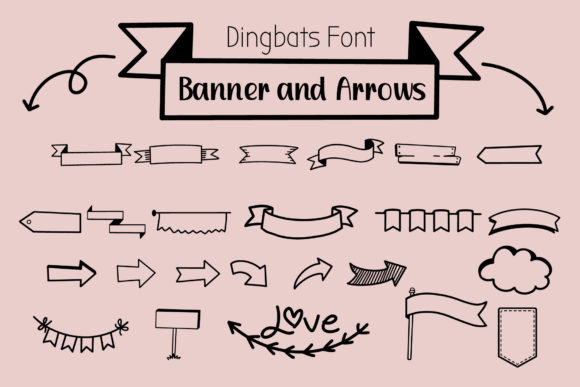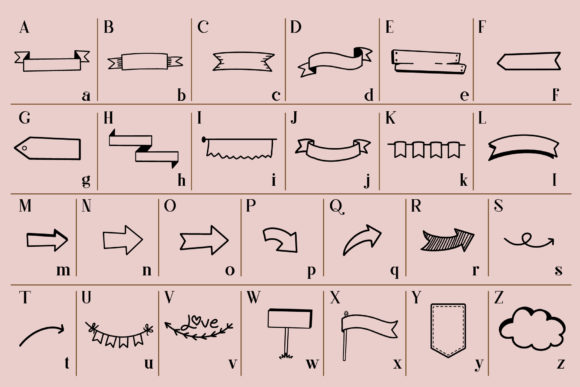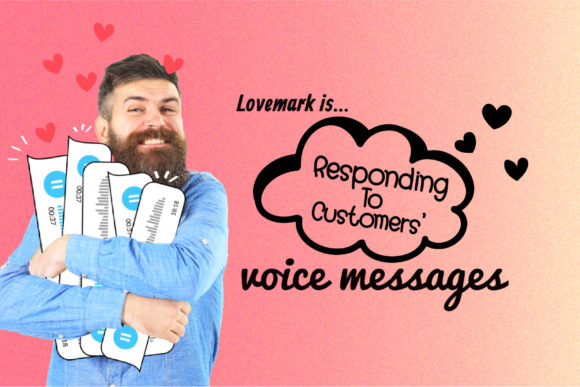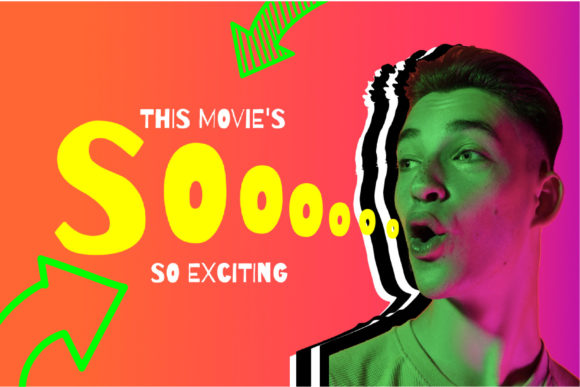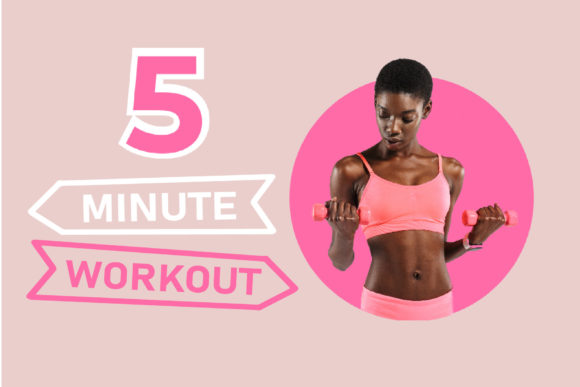
Banner and Arrows Font
Banner And Arrows is an impressive and practical dingbats font that offers a collection of banners and arrows to enhance your design projects. Whether you’re creating banners, labels, signs, or simply adding visual interest to your designs, this font is a valuable addition to your creative toolkit.
With Banner And Arrows, you have access to a variety of banner shapes and styles. These banners can be used to highlight text, create attention-grabbing headers, or frame important information in your designs. The versatility of the banners allows you to adapt them to various projects, whether it’s designing posters, flyers, social media graphics, or even web banners.
In addition to the banners, the font also includes a range of arrows. Arrows are useful for directing attention, indicating movement or flow, or adding a dynamic element to your designs. You can incorporate these arrows into navigation menus, infographics, presentations, and any other project where visual cues and direction are needed.
One of the advantages of using a dingbats font like Banner And Arrows is the ease of implementation. Simply type the corresponding letters or characters to generate the desired banner or arrow glyph. You can experiment with different styles, sizes, and orientations to find the perfect fit for your design.
Banner And Arrows is versatile enough to complement various design styles and themes. Whether you’re going for a modern, vintage, playful, or professional look, these banners and arrows can be customized to match your project’s aesthetic. Adjust the color, size, and other design properties to align with your overall visual concept.
By incorporating Banner And Arrows into your projects, you can add a touch of visual interest, professionalism, and direction. The banners and arrows can help draw attention to important elements, guide the viewer’s eye, and create a sense of visual hierarchy in your designs.
In summary, Banner And Arrows is a cool and practical dingbats font that offers a versatile collection of banners and arrows for your design projects. With its easy implementation and customization options, this font allows you to add visual interest, direction, and emphasis to your designs with confidence.